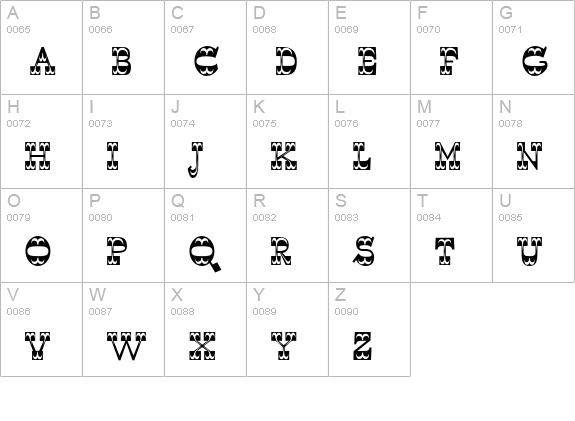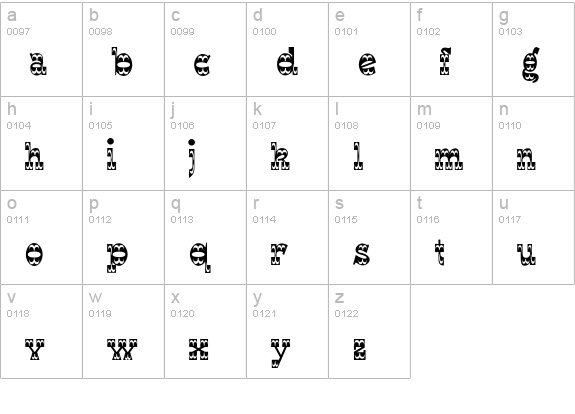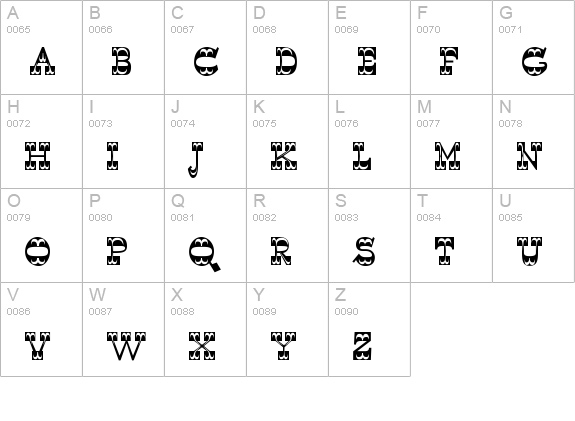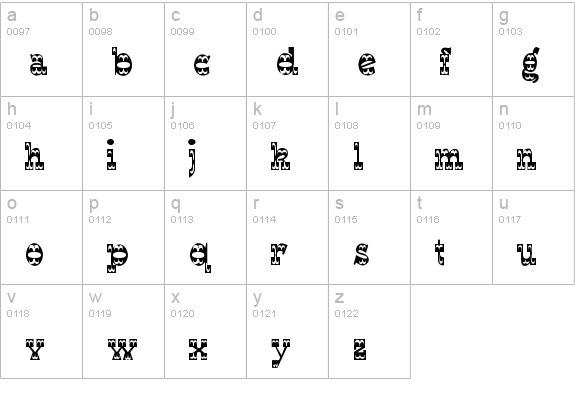
Dalton Font Details
Introducing Dalton, a captivating and versatile font that will add a touch of elegance and sophistication to any design project. With its modern yet timeless appeal, Dalton is the perfect choice for everything from logos and branding to invitations and editorial designs. Dalton's clean lines and balanced proportions create a harmonious visual experience, ensuring legibility and readability across various mediums. Its refined and polished letterforms exude confidence and professionalism, making it an ideal typeface for corporate communications and professional presentations. But what truly sets Dalton apart is its incredible versatility. Whether you're looking to create a contemporary design or a classic vintage aesthetic, this font has got you covered. Its extensive character set includes multiple stylistic alternates, ligatures, and swashes, allowing you to experiment and customize your typography with ease. And the best part? Dalton is available for free! You can download this exceptional font at FontsMarket.com, a trusted source for high-quality fonts. With Dalton, you won't have to compromise on quality or budget. Enhance your designs with this premium typeface without spending a dime. So why wait? Elevate your projects and make a lasting impression with Dalton. Download this remarkable font today, and let its timeless elegance and versatility take your designs to new heights. Whether you're a professional designer or a creative enthusiast, Dalton is sure to become your go-to choice for all your typographic needs.